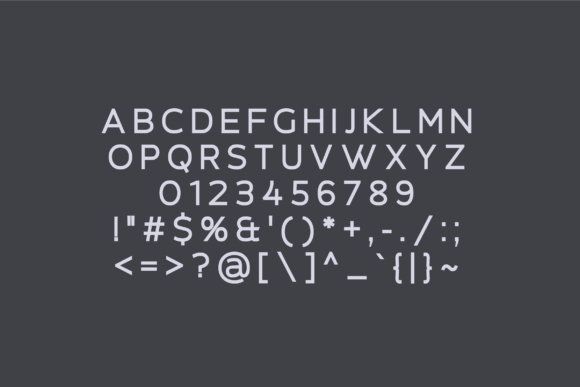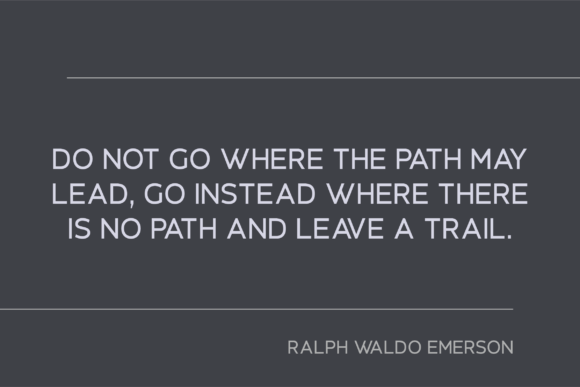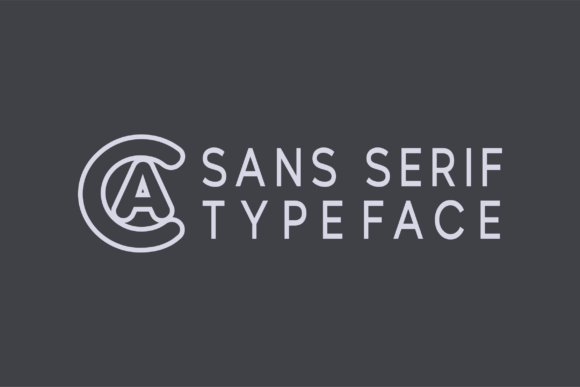
Introduction to Letterflux Font
The moment of truth in design – when your creative vision finally comes to life. You’ve poured your heart and soul into crafting the perfect concept, and it’s time to choose the perfect font to bring it all together. For many designers, the search for the perfect font can be a daunting task, but what if you stumbled upon one that effortlessly elevates your design to the next level?
Enter the Letterflux Font – a game-changing sans-serif font that’s perfect for logos, headlines, posters, and more. With its bold, modern aesthetic, this typeface is designed to make a statement and leave a lasting impression. Whether you’re working on a branding project, a tech startup, or a fashion campaign, the Letterflux Font is the perfect design resource to add a touch of high-quality style and sophistication.
Key Features of Letterflux Font
- High-quality, vector-based font designed for creative projects and digital designs.
- Unique, hand-crafted design that adds a touch of personality to any creative project.
Honest Review: Letterflux Font
I recently stumbled upon the Letterflux Font and I have to say, it’s been a game-changer for my creative project. The font is incredibly versatile and works well in a variety of settings, from modern websites to traditional print materials. ✨
One of the things that I appreciate most about the Letterflux Font is its high quality. The font is crisp, clean, and has a transparent background that makes it easy to work with. ✨ The free download option is also a huge plus, as it’s always great to have access to a reliable design resource without breaking the bank.
Here are a few things that I like about the Letterflux Font:
- May not be suitable for very formal or traditional projects
- Some users may find the font too modern or trendy
- Not as extensive a character set as some other fonts
Overall, I’m really impressed with the Letterflux Font and I think it’s a great addition to any designer’s toolkit. With its high quality design, transparent background, and free download option, it’s a must-have for any creative project. ✨
Introduction to Letterflux Font
The Letterflux Font is a high-quality, free download design resource ideal for creative projects. Its transparent background makes it versatile and easy to integrate into various design platforms.
Tips for Getting the Most Out of Letterflux Font
To get the most out of the Letterflux Font, use it in combination with other design elements, such as images and graphics, to create a visually appealing design. You can also experiment with different font sizes, colors, and styles to add depth and interest to your design.
Common Use Cases for Letterflux Font
The Letterflux Font is ideal for use in various creative projects, including logos, business cards, brochures, and social media graphics. Its transparent background makes it perfect for use on top of images or videos, allowing for seamless integration and a professional finish.